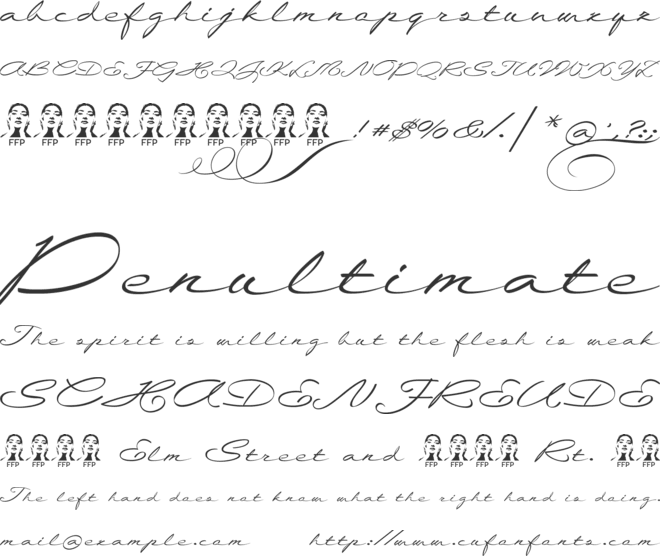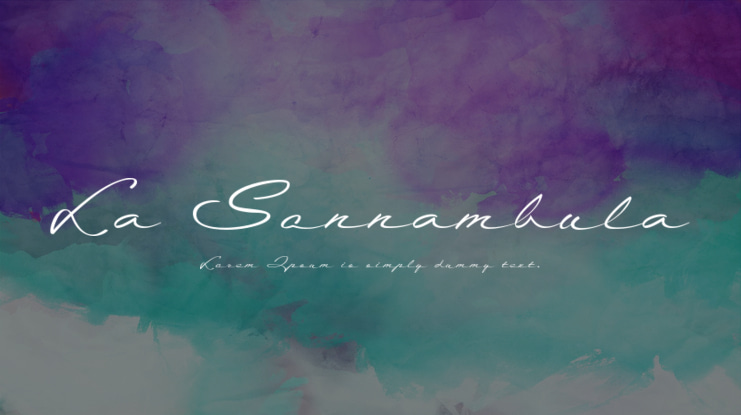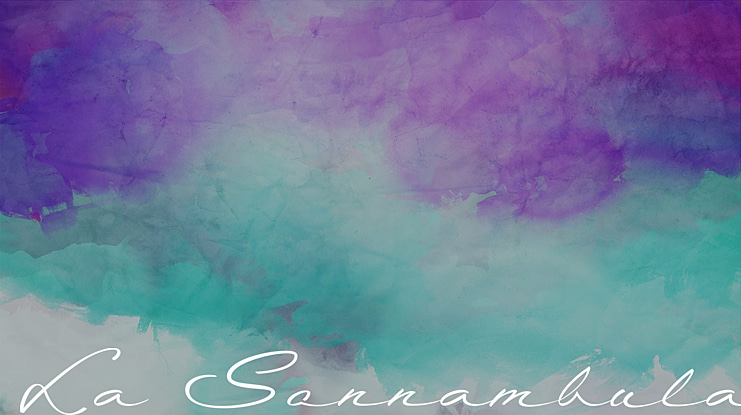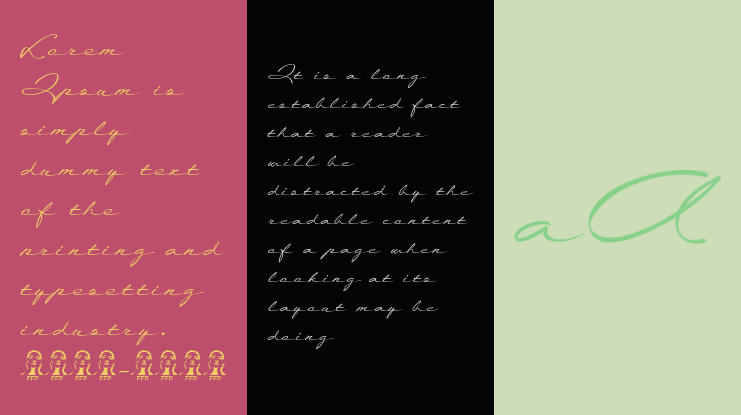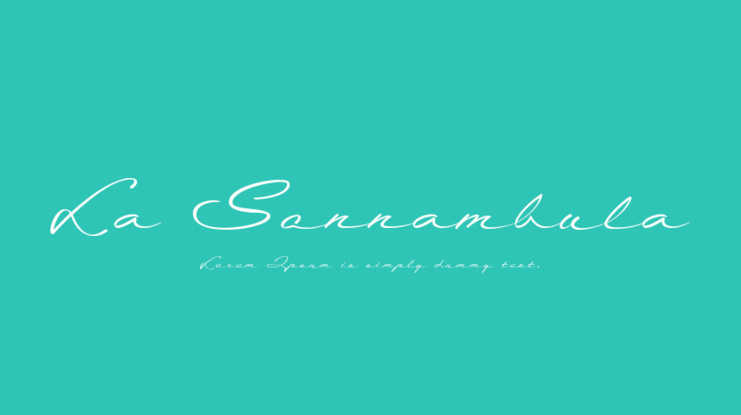
La Sonnambula Font
The Sonnambula is a handwritten and expanded font, designed to write very elegant titles or calligraphic texts. The name of this typography is dedicated to the opera La Sonnambula by Vincenzo Bellini, performed by Maria Callas in Milan in 1957. Include Bitcoin Symbol (b#)Use the following characters for the ornaments: () []Thanks for download==============FULL VERSION + COMMERCIAL LICENSE: defharo.com/fonts/la-sonnambula-script/ (http://defharo.com/fonts/la-sonnambula-script/)